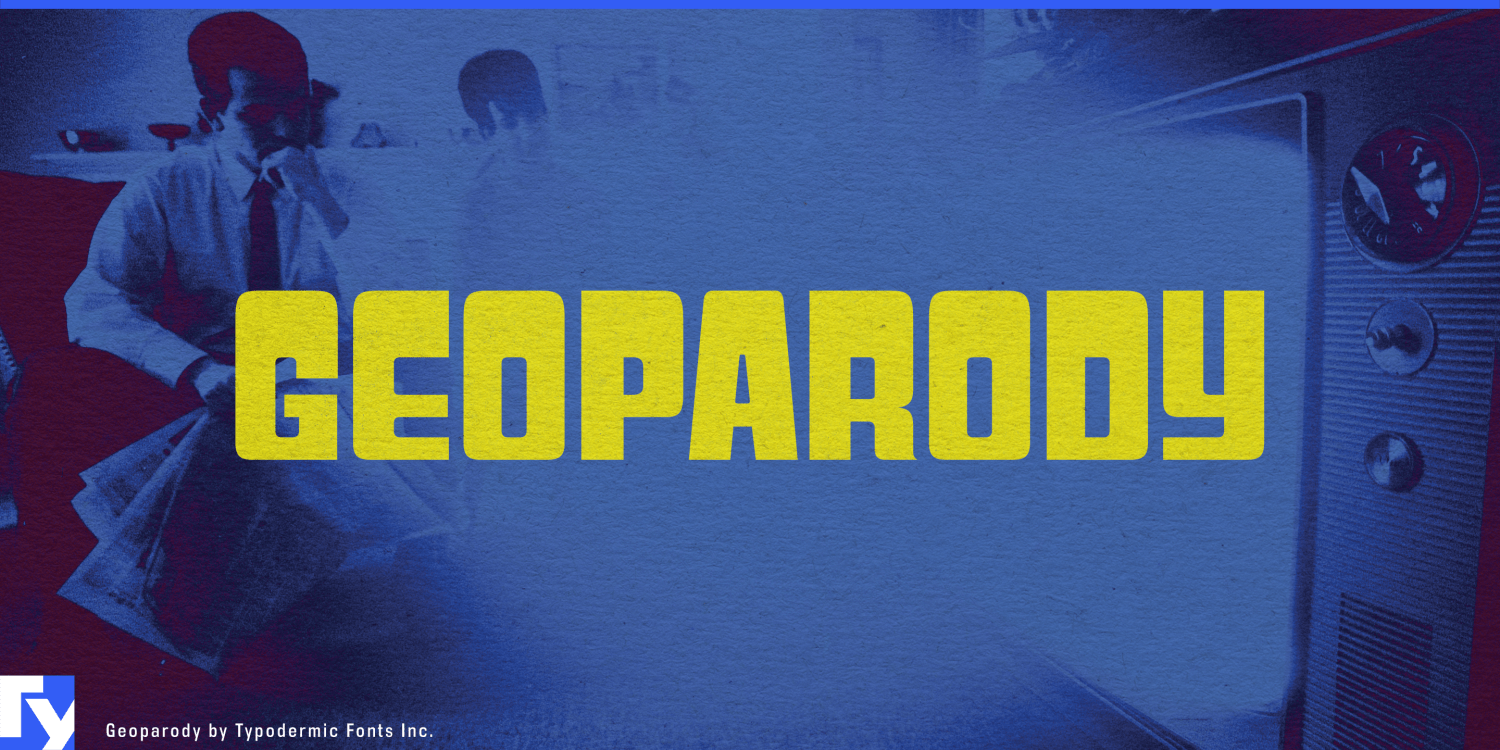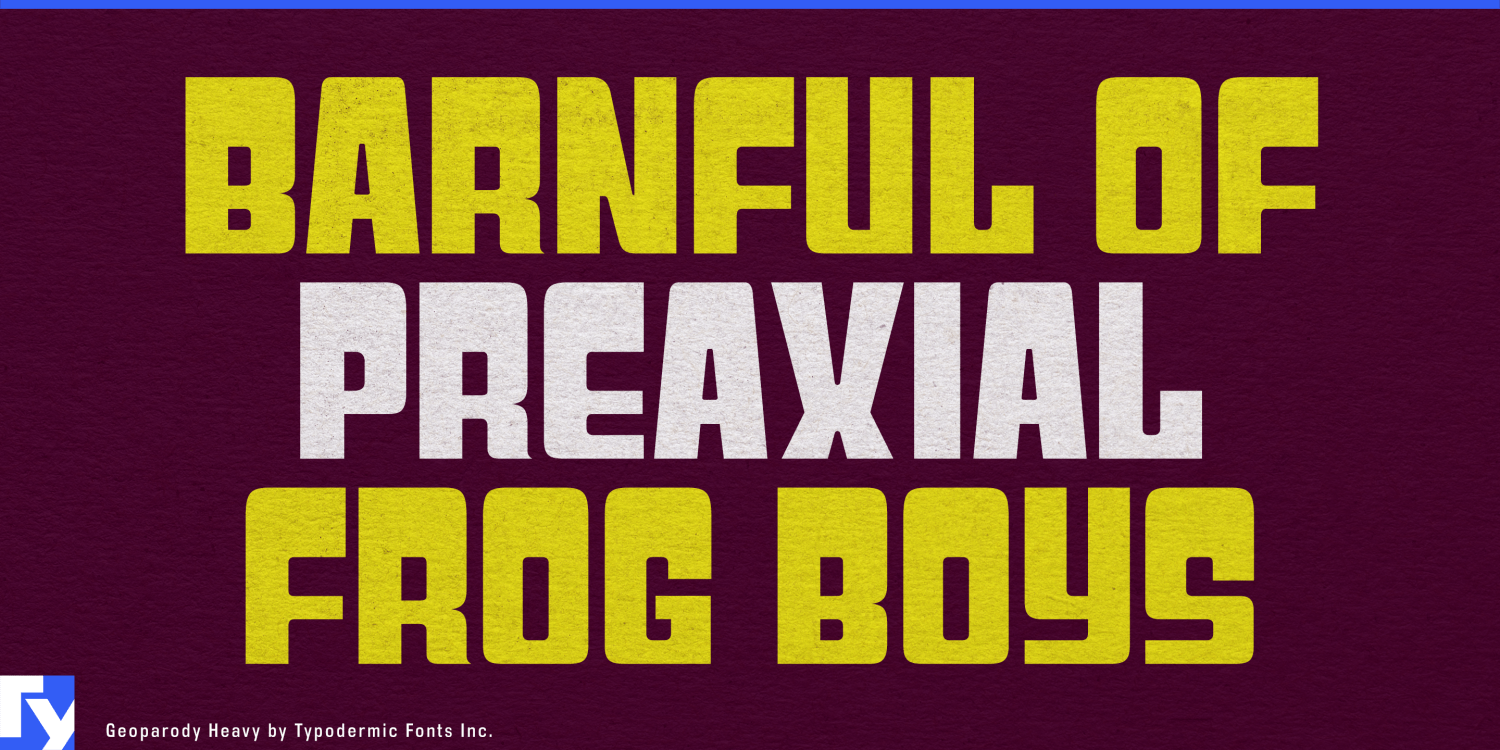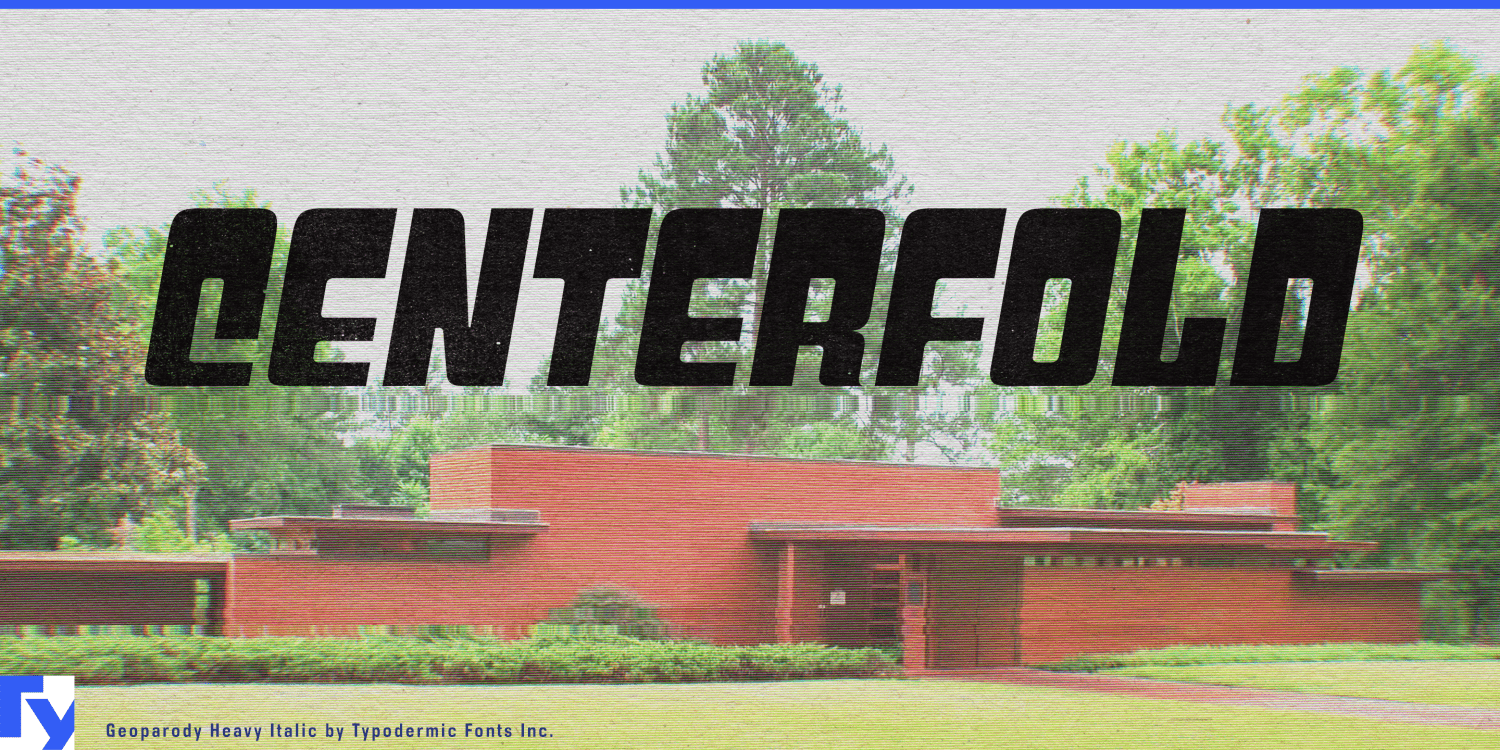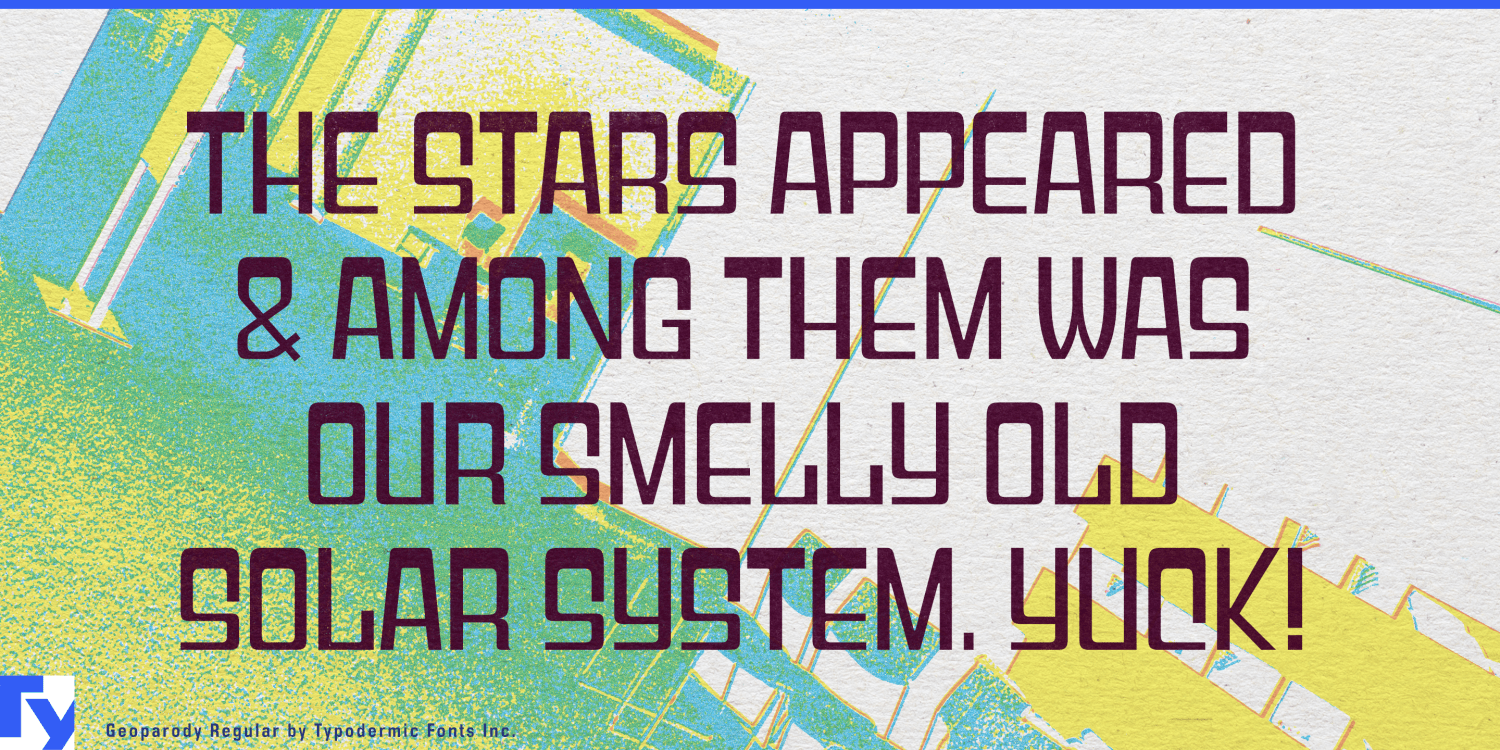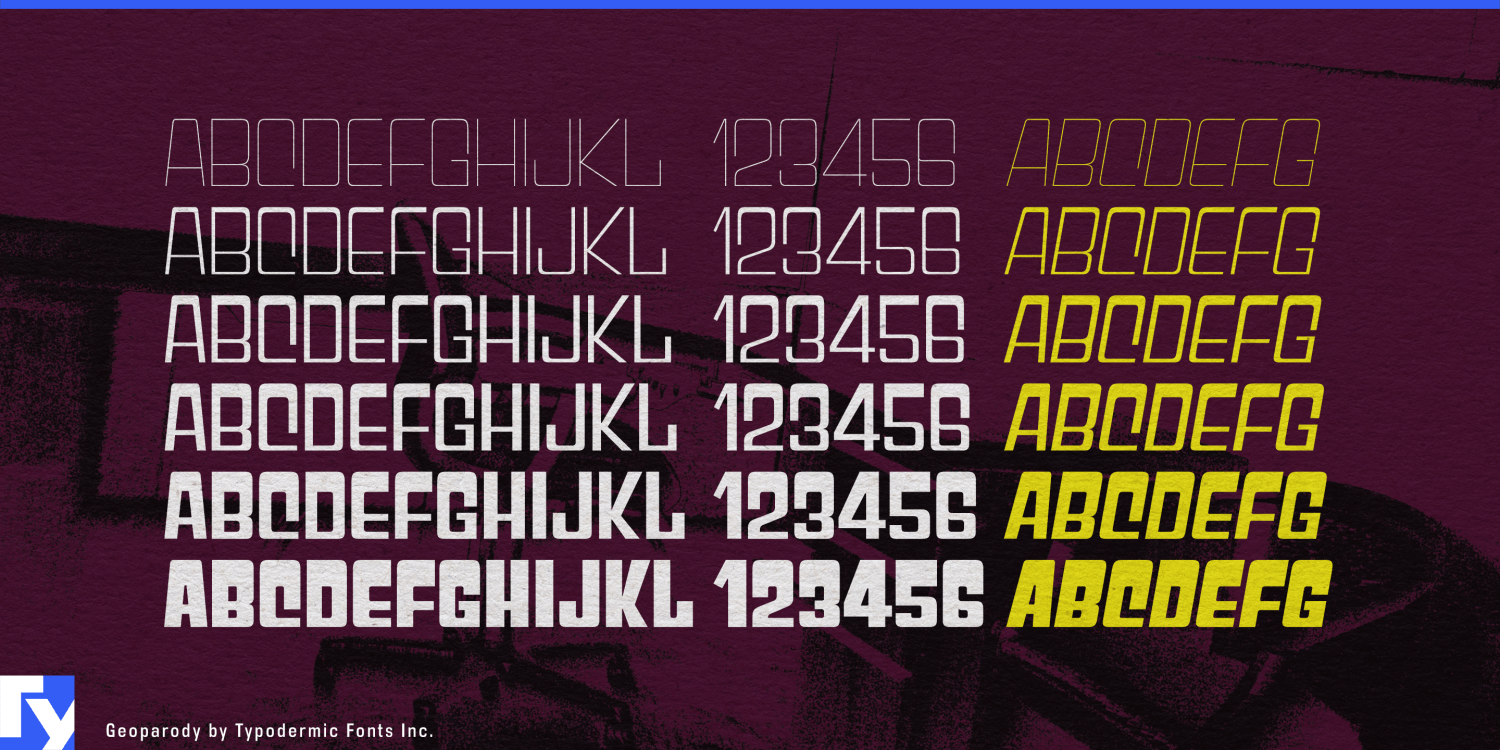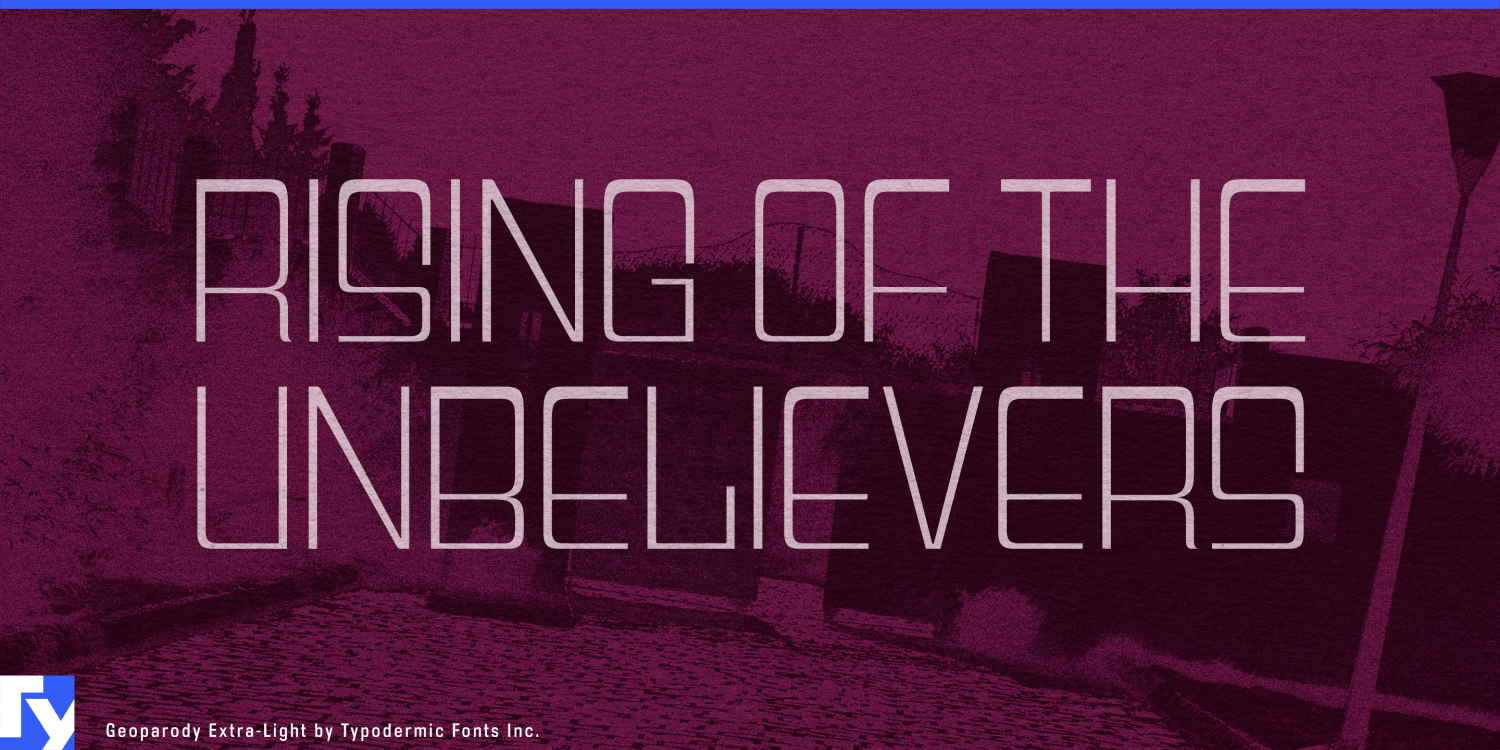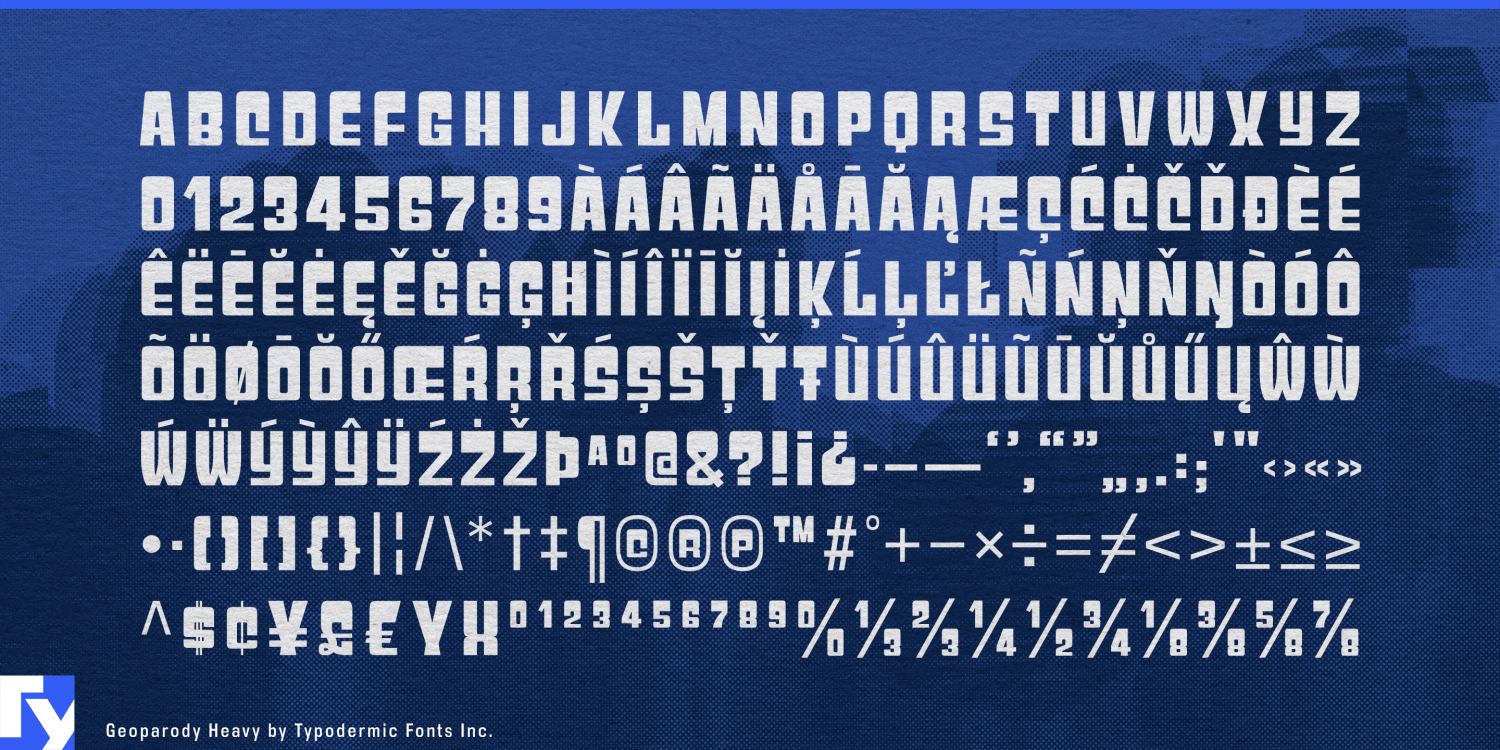
Geoparody
Buy NowMany retro-futurist display faces work at one volume. They can make a striking headline or wordmark, then become difficult to extend into a broader identity. Geoparody has a wider operating range. Its thinnest styles are linear, disciplined, and architectural; as the weight increases, the same flat-sided geometry becomes more assertive, while the heavy italics introduce genuine speed and impact.
That range makes Geoparody especially useful for specialty coffee. Thin and Extra-Light suit espresso bars and serious roasters focused on beans, origin, processing, and extraction rather than nostalgic café atmosphere. Oversized origin names, microlot cards, pour-over menus, subscription boxes, cold-brew bottles, coffee bags, and equipment displays can use its precise geometry without becoming sterile. Heavier weights can carry the roaster name or product line while the lighter styles handle technical information and secondary display text.
At the opposite end of the family, the heavy italics suit speed-oriented sports such as track cycling, speed skating, downhill skiing, bobsleigh, badminton, squash, and motorsport. Athlete names, timing graphics, race numbers, venue banners, equipment launches, and shoe or racket model campaigns benefit from lettering that feels engineered without falling into the usual blocky athletic vocabulary.
Science and public technology occupy another useful territory. Planetariums, observatories, aerospace museums, robotics exhibitions, engineering conferences, science-center interactives, and university technology showcases often need typography that feels technical without resembling a software interface. Geoparody can handle exhibit titles, large diagrammatic headings, section numbers, wayfinding, and promotional graphics with a distinctly physical, engineered quality.
Its lighter styles also fit modernist architecture and design: house museums, architectural tours, prefab-home companies, furniture and lighting showrooms, modernist hotels, design exhibitions, and residential developments. Building names, floor numbers, room identifiers, directory headings, and campaign typography can all benefit from its narrow geometric structure.
Geoparody can also move onto carefully designed physical equipment such as hi-fi components, synthesizers, studio monitors, espresso machines, architectural lighting, and precision kitchen hardware. Fine weights can carry model names and technical designations; heavier styles give product families a stronger identifying mark.
The family’s real advantage is the distance it can travel without losing its underlying geometry. Geoparody can move from a hairline coffee-roaster identity or architectural display to the heavy italic typography of a velodrome championship, giving designers several distinct levels of intensity within one coherent display system.